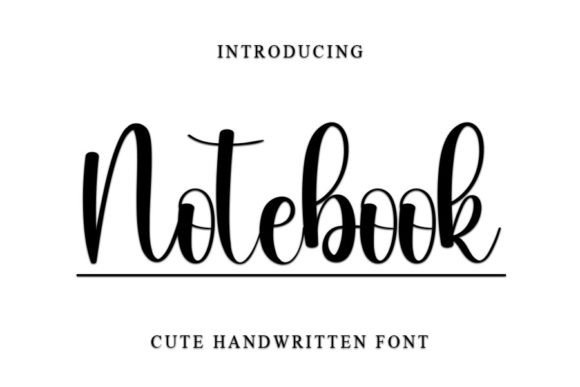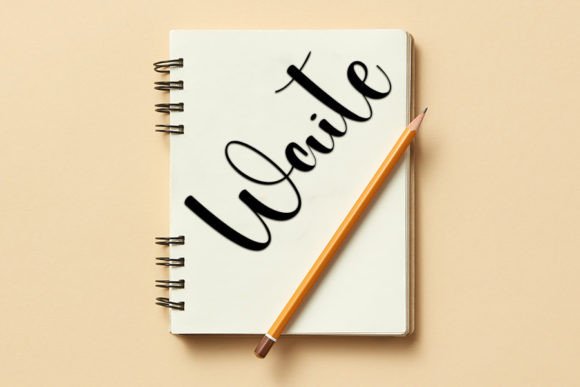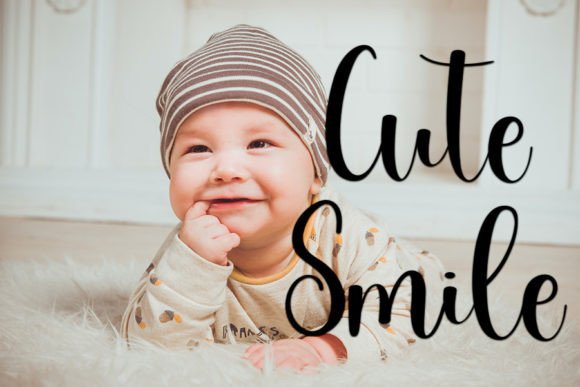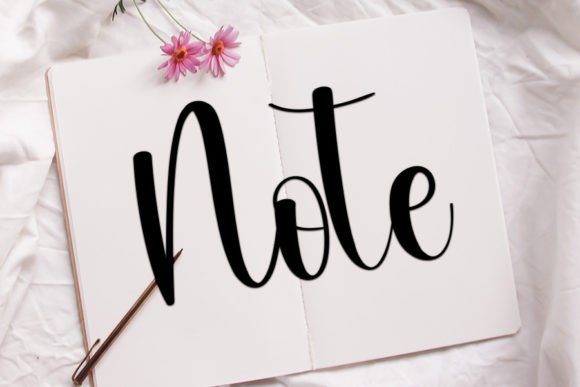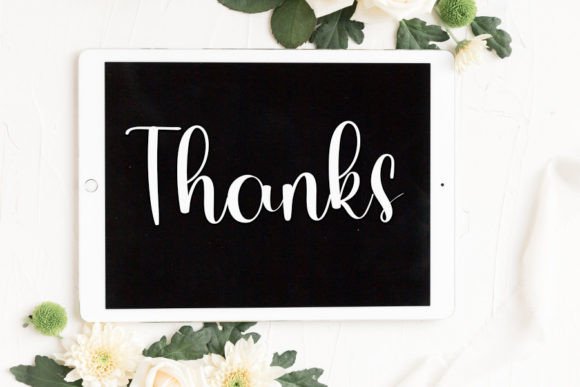
Notebook Font
About Notebook Font Download
The Notebook Font Download is a neat and elegant handwritten script designed to add timeless charm to creative projects. With its graceful strokes and balanced details, this font feels stylish, modern, and highly versatile. Whether you need it for invitations, posters, or branding, Notebook adds a refined handwritten look that enhances your designs.
An Elegant Script with Timeless Style
The Notebook script font blends smooth handwritten lines with a contemporary flair. As a result, it feels both unique and approachable. Furthermore, it adapts easily to different projects, from small greeting cards to large banners.
Fonts with a handwritten touch always bring emotion to stationery. The Notebook Font is perfect for wedding invitations, thank you notes, birthday cards, and seasonal greetings. Because of its neat curves, every message looks polished and heartfelt. In addition, its gentle style helps designs feel more personal.
Branding and Logo Design with Notebook Font
Typography is an important element of brand identity. The Notebook handwritten font works beautifully for boutique logos, packaging, and promotional materials. Its elegant handwritten rhythm gives businesses a friendly yet professional identity. Therefore, it is ideal for brands that want sophistication without losing warmth.
Posters, Titles, and Creative Displays
The Notebook Font Download is also well-suited for posters, book covers, banners, and magazine layouts. It stays clear and stylish across different sizes. Consequently, it is a smart choice when you want elegance and readability together.
In today’s creative space, fonts must be both practical and attractive. The Notebook typeface integrates seamlessly into Instagram posts, Pinterest graphics, YouTube thumbnails, and blogs. Because of its stylish handwritten charm, it makes digital projects stand out.
Why Designers Choose Notebook Typeface
Designers often need fonts that balance style with function. The Notebook handwritten script keeps its elegance while remaining easy to read, which makes it dependable for both professional and personal projects. Moreover, its timeless design ensures it will never feel outdated.